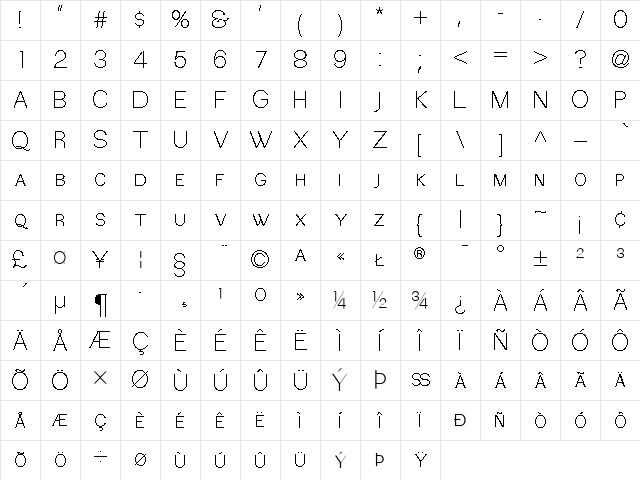
PassionSansPDbc LightSmallCaps Free Font
PassionSansPDbc LightSmallCaps
Style: LightSmallCaps
Foundry: Prescott Design
Design Context for PassionSansPDbc
PassionSansPDbc is a composed and adaptable typeface that performs quietly and consistently across a wide range of design contexts. Its slender proportions lend an understated elegance to any composition.